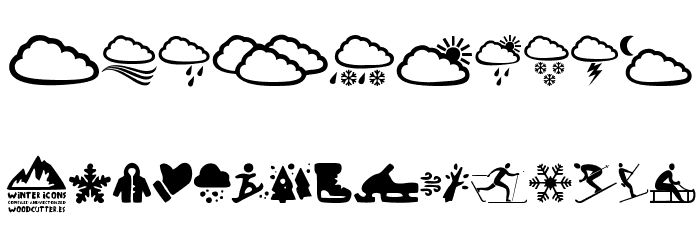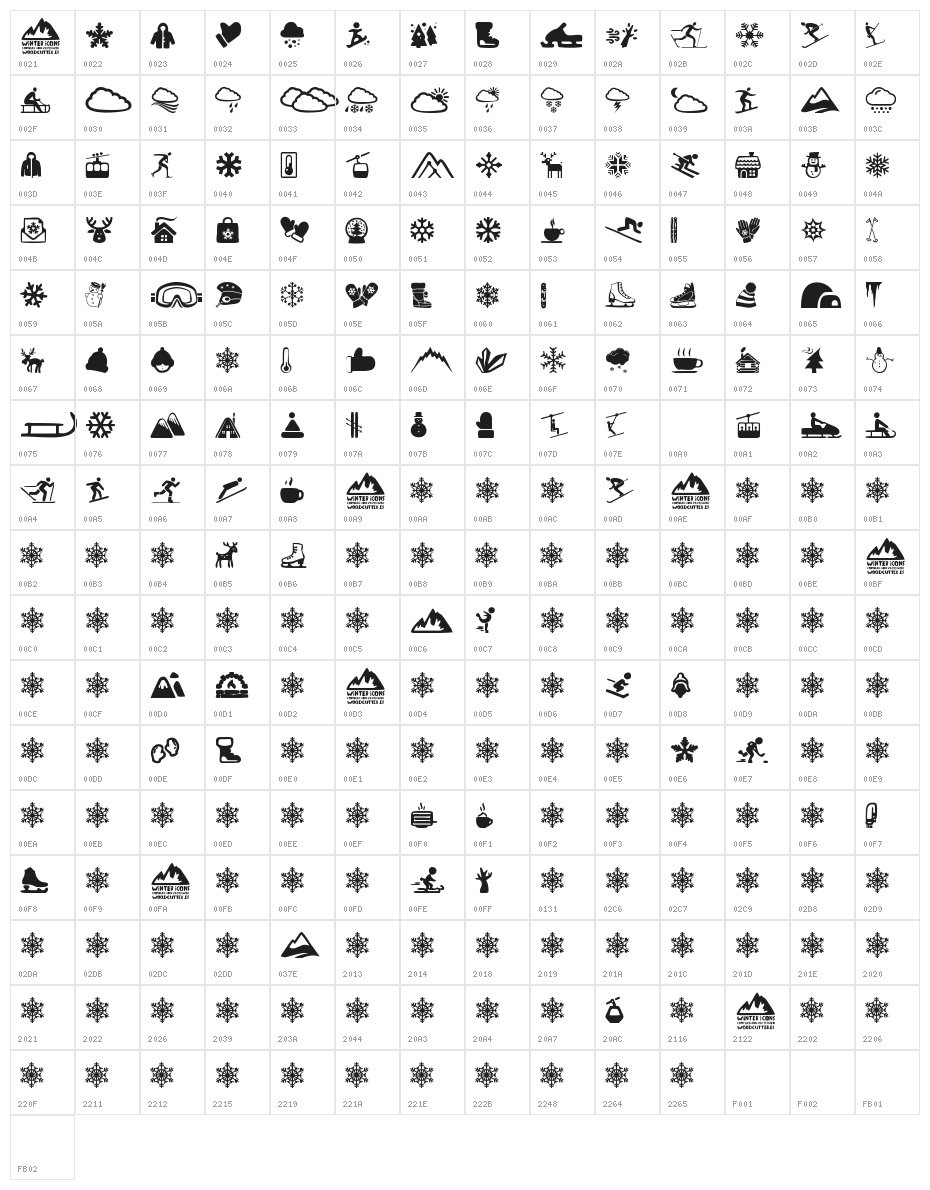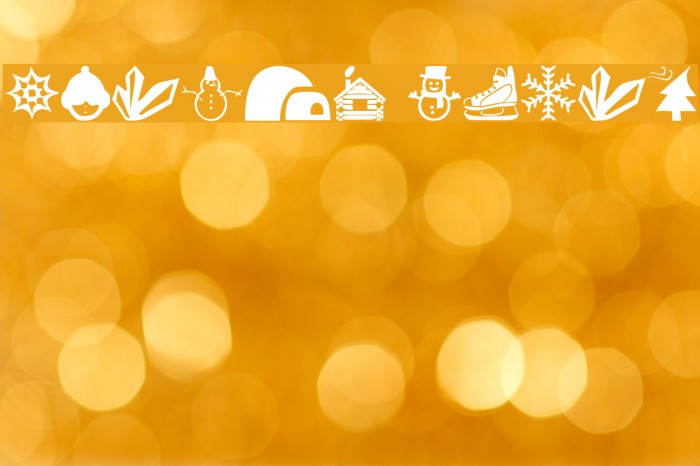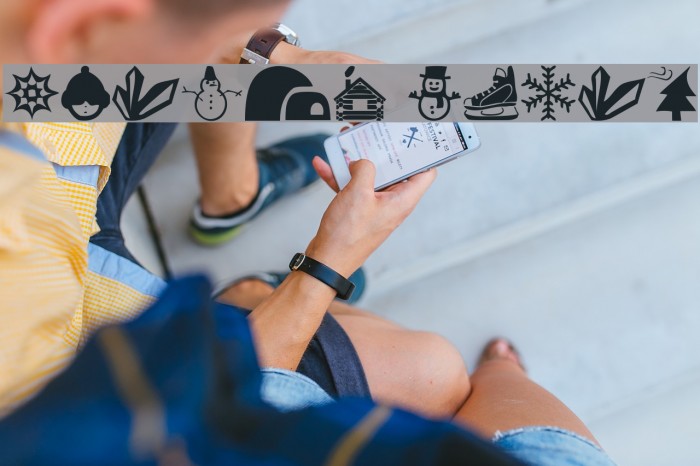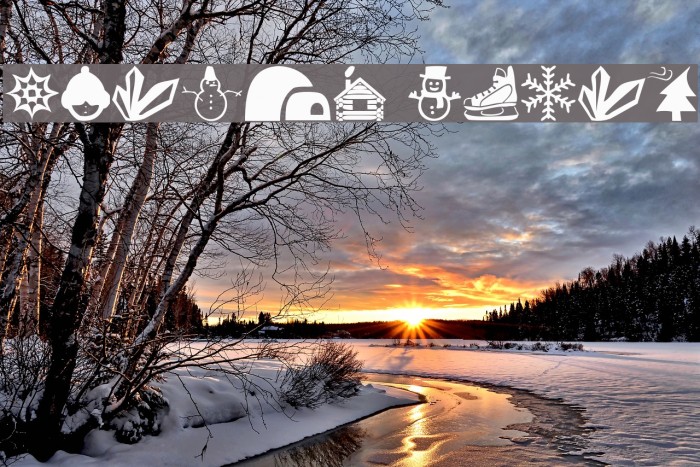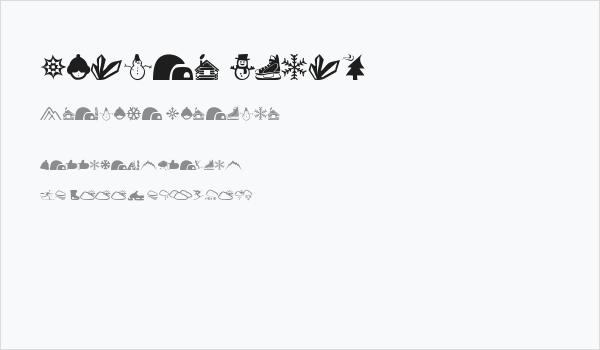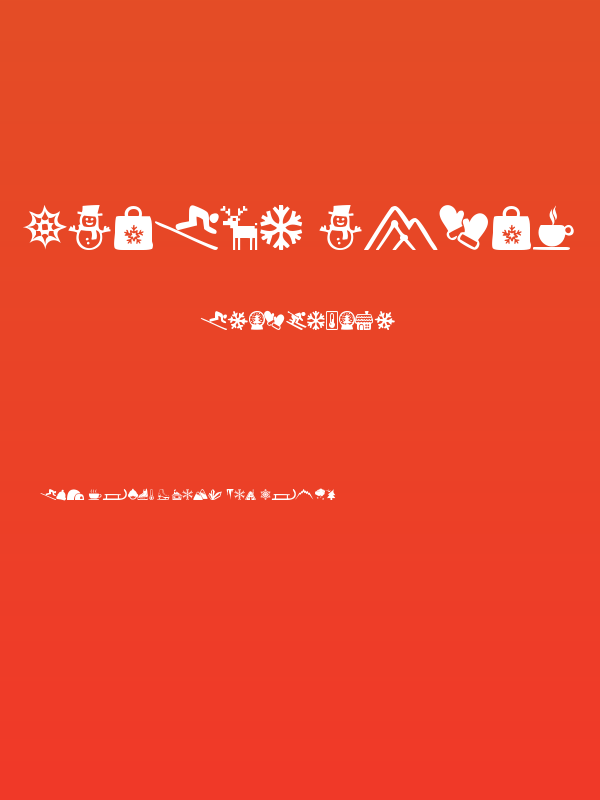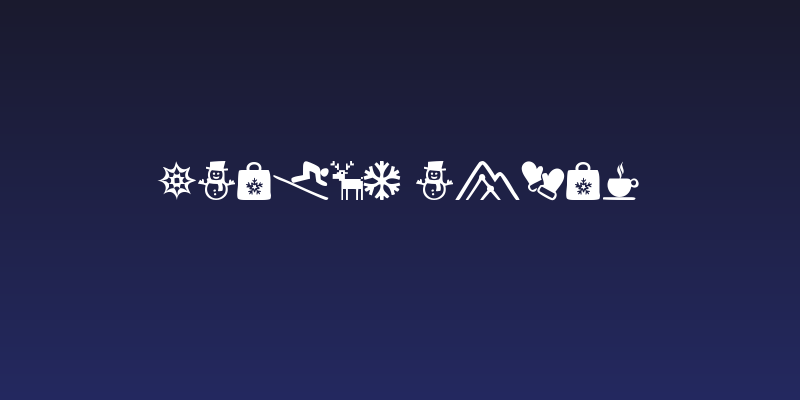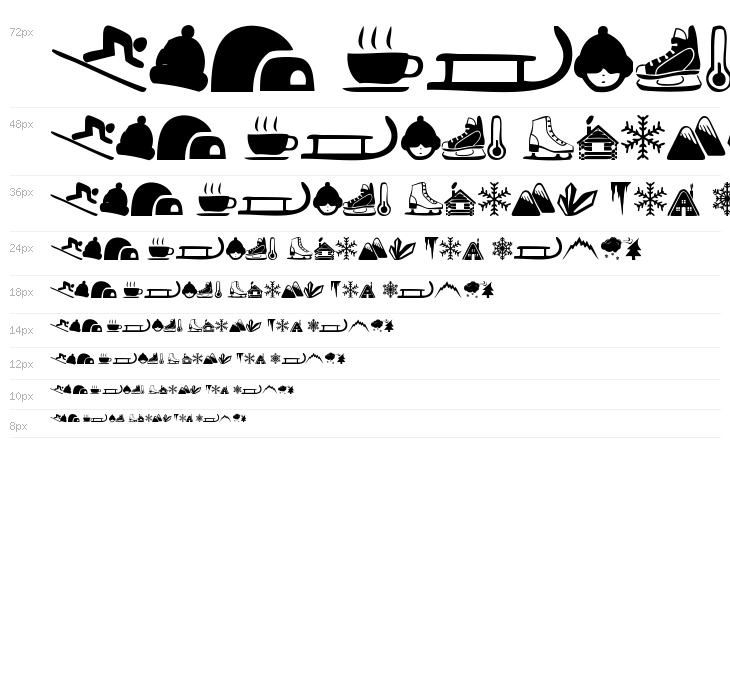
Winter Icons Font
Winter Icons Description
A collection of winter-themed pictograms including snowflakes, mountains, winter sports, weather, and holiday icons, all rendered in a bold, solid black silhouette style with consistent line thickness and minimal detail.
| Overall Style | Decorative, Modern |
| Use Case | Icons, Logos, Decorative elements |
| Proposed Projects | Seasonal event posters, winter festival branding, holiday cards, infographics, web/app UI, educational materials. |